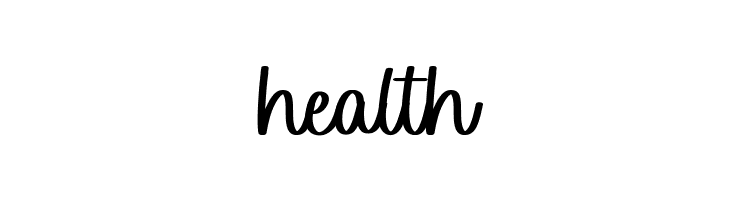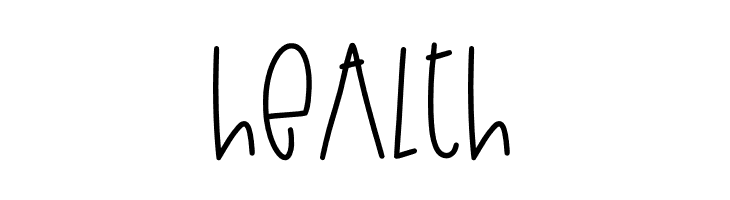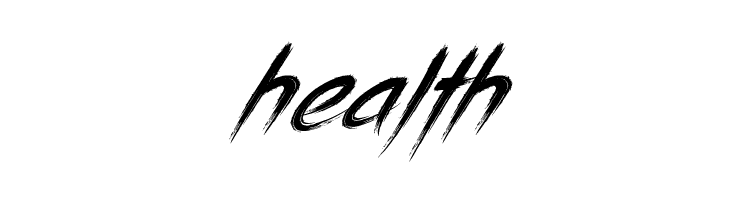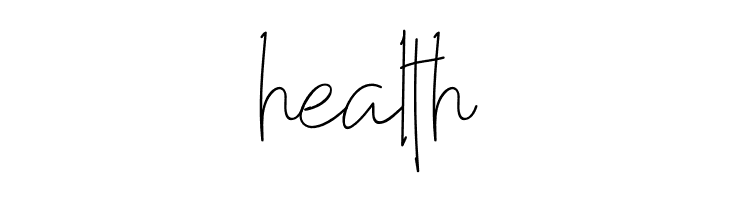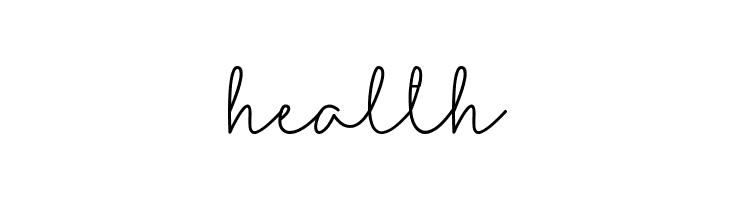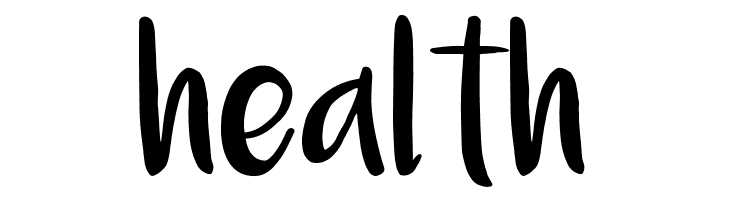
A playful, flowing script font with a handwritten style.
A modern, geometric outline font with consistent width and structured letterforms.
A playful, hand-drawn font with tall, narrow characters and a whimsical style.
Nature-inspired ornamental designs featuring leaves and coffee beans in bold silhouettes.
A dynamic brush script font with bold, sweeping strokes and a modern, edgy style.
A playful, casual handwritten font with irregular strokes and an organic flow.
A charming handwritten script with smooth, flowing characters.
A playful, hand-drawn font with bold, irregular strokes and dynamic character.
A bold, vintage-inspired font with strong, angular serifs and uniform height.
A cursive script font with elegant, flowing strokes and a handwritten feel.